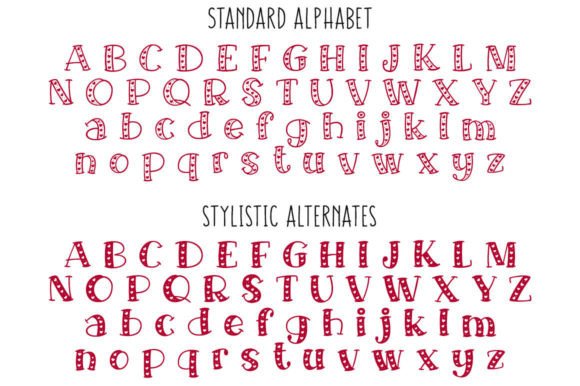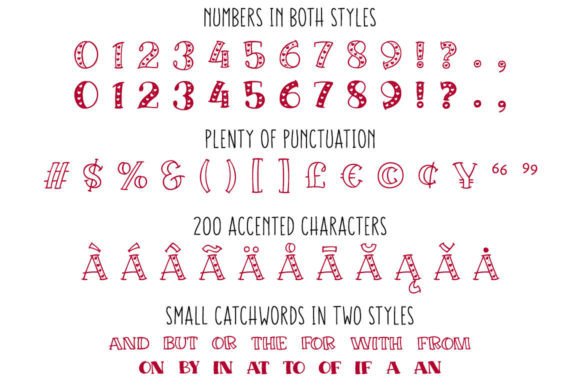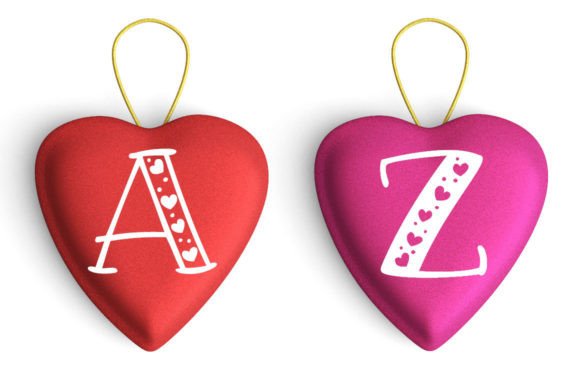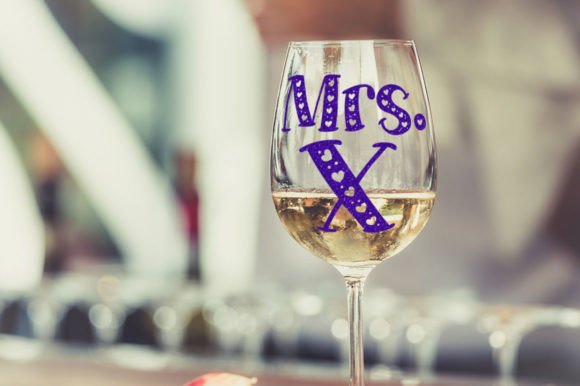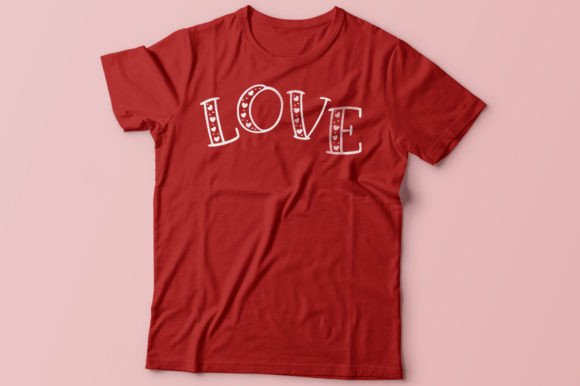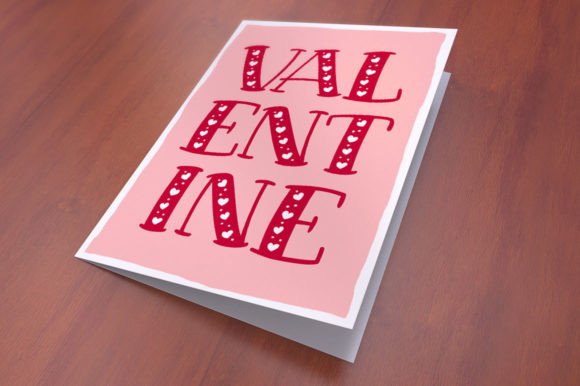
Introducing Big Sweetie Font: A Handwritten Serif Font that’s All About Love
Are you looking for a font that exudes love, warmth, and playfulness? Look no further than Big Sweetie, a beautiful handwritten serif font that’s perfect for designers and crafters who want to add a touch of whimsy to their projects. In this article, we’ll take a closer look at Big Sweetie, its features, and how you can use it to create stunning designs.
What is Big Sweetie Font?
Big Sweetie is a pair of fonts in one, offering a unique and versatile design that’s perfect for a wide range of projects. The standard alphabet is hollowed out and filled with a scattered pattern of hearts and polka dots, giving it a playful and romantic feel. But that’s not all – Big Sweetie also includes a full set of stylistic alternate letters that are solid and filled with the same hearts and dots, providing you with even more creative options.
Key Features of Big Sweetie Font
So, what makes Big Sweetie font so special? Here are some of its key features:
- Dual-font design: Big Sweetie includes two fonts in one – a hollow font with a scattered pattern of hearts and polka dots, and a solid font with the same design.
- Stylistic alternates: The font includes stylistic alternates for A-Z, a-z, 0-9, and ?!,. , giving you even more creative options.
- Multiple language support: Big Sweetie includes over 200 accented characters, making it suitable for use in multiple languages, including English, French, Spanish, German, Polish, Romanian, Portuguese, Swedish, Finnish, Norwegian, Danish, Esperanto, Czech, Dutch, Welsh, Filipino, Turkish, and more.
- Catchwords: The font includes 16 small catchwords, such as “the”, “and”, “or”, “for”, “from”, “with”, “of”, “by”, and many others, in both hollow and solid versions.
- Punctuation and glyphs: Big Sweetie includes tons of punctuation and over 420 glyphs in total, making it a versatile font for a wide range of projects.
Who is Big Sweetie Font Suitable for?
Big Sweetie font is perfect for designers and crafters who want to add a touch of love and whimsy to their projects. It’s ideal for:
- Stationery and card making: Big Sweetie is perfect for creating beautiful stationery, greeting cards, and invitations.
- Digital design: The font is great for digital designers who want to create stunning social media graphics, blog posts, and website headers.
- Crafting and scrapbooking: Big Sweetie is a great addition to any crafter’s or scrapbooker’s font collection, perfect for creating beautiful journal pages, scrapbook layouts, and craft projects.
Tips for Using Big Sweetie Font
Here are some tips for using Big Sweetie font in your designs:
- Mix and match: Experiment with mixing and matching the hollow and solid fonts to create unique and interesting designs.
- Add embellishments: Use the catchwords and stylistic alternates to add embellishments to your designs and make them more visually appealing.
- Play with colors: Big Sweetie font looks great in a variety of colors, so don’t be afraid to experiment and find the perfect color scheme for your design.
Big Sweetie font is a beautiful and versatile handwritten serif font that’s perfect for designers and crafters who want to add a touch of love and whimsy to their projects. With its dual-font design, stylistic alternates, multiple language support, and tons of punctuation and glyphs, Big Sweetie is a font that’s sure to inspire your creativity. Whether you’re creating stationery, digital designs, or craft projects, Big Sweetie is a great addition to any font collection.